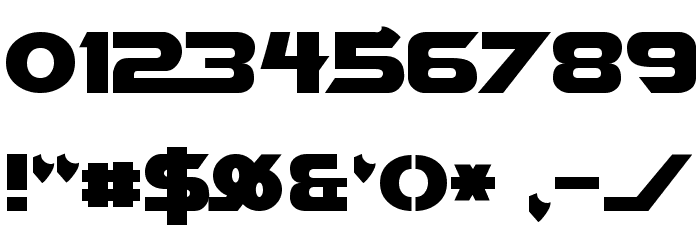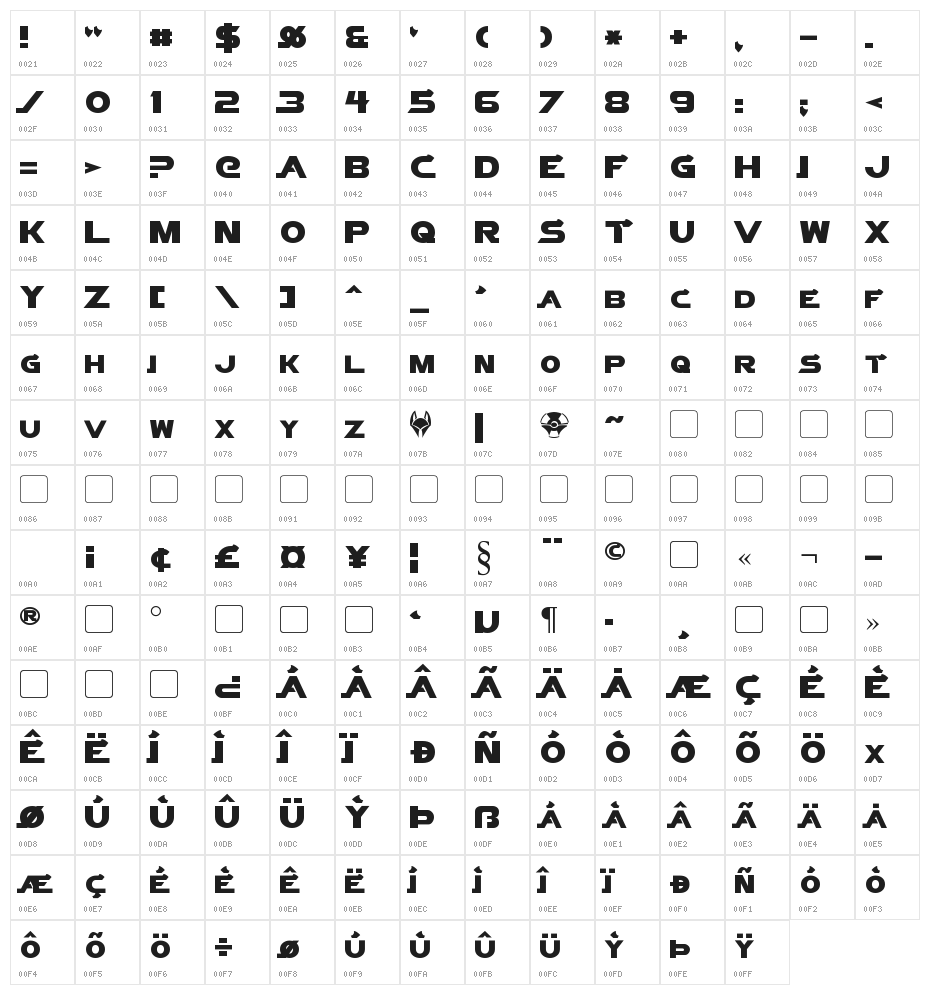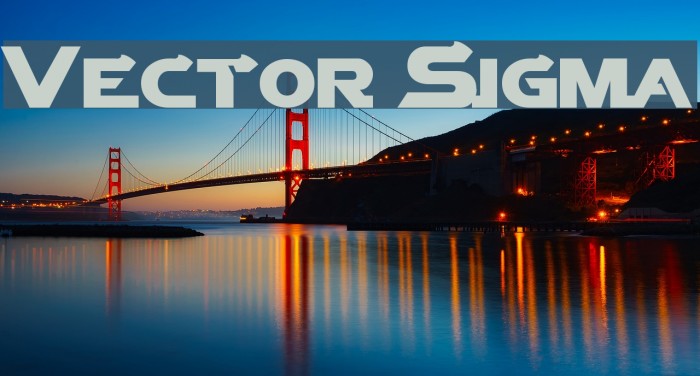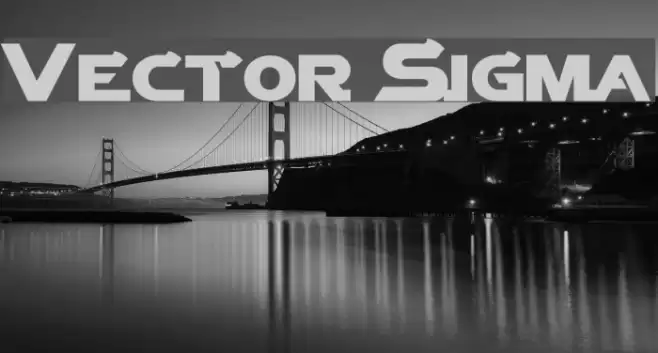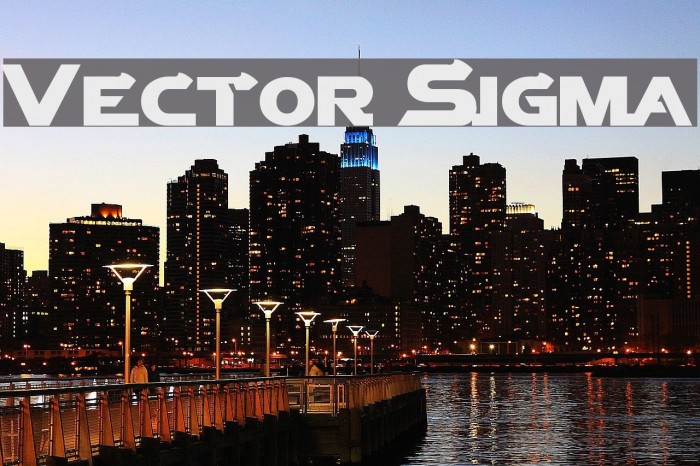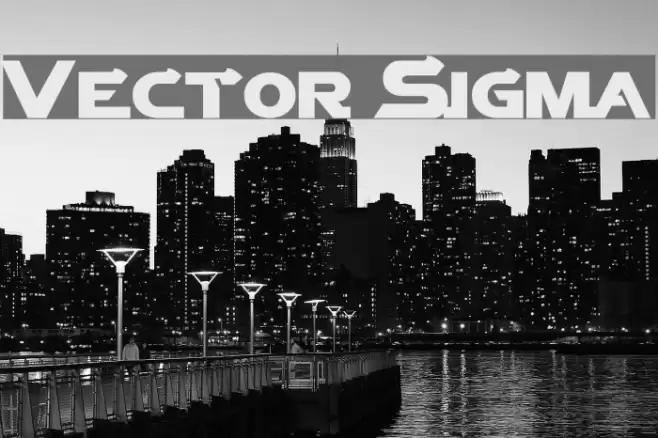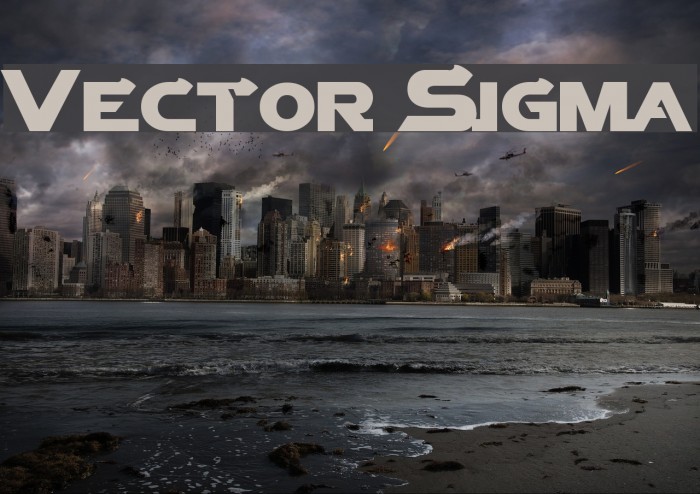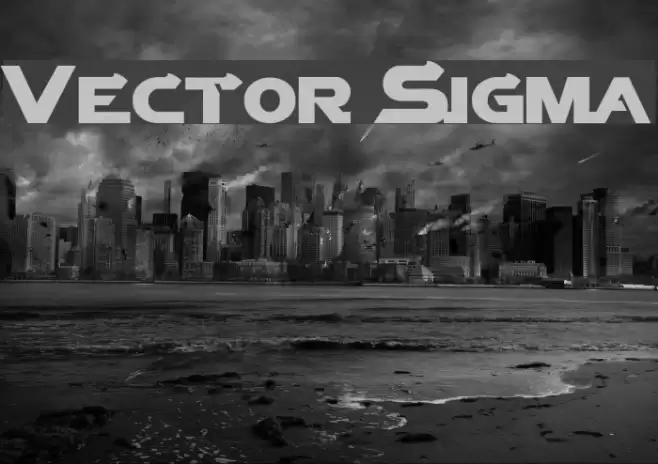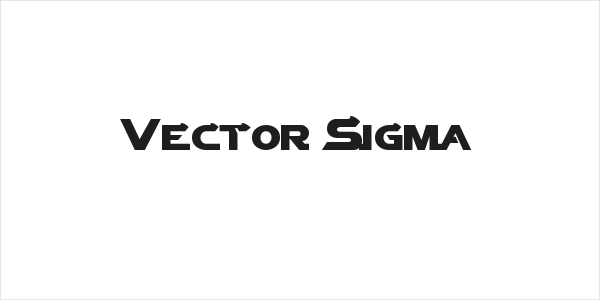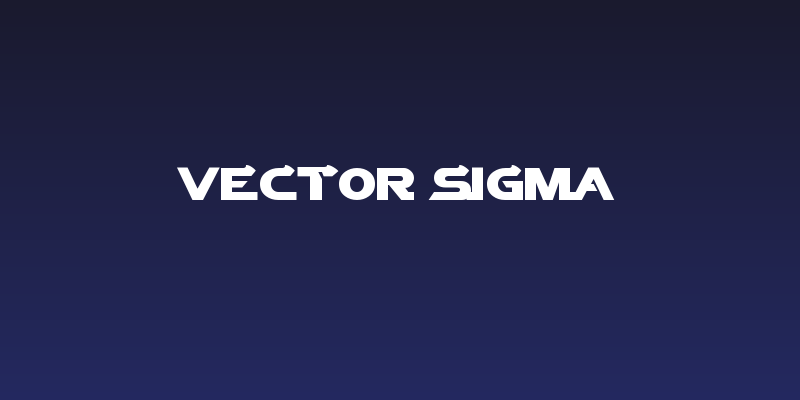
Vector Sigma Font
Vector Sigma Description
This font features a bold, geometric design with a futuristic and industrial feel. The characters are constructed with thick, uniform strokes and sharp angles, giving them a strong and assertive appearance. The use of straight lines and angular cuts creates a sense of precision and modernity. The uppercase and lowercase letters maintain a consistent style, with the lowercase mirroring the uppercase in form and structure. Numbers and special characters are designed to match the bold and angular aesthetic, ensuring a cohesive look across all elements. This font is ideal for projects that require a modern and impactful visual presence.
| Proposed Projects | Ideal for technology branding, sci-fi posters, video game titles, and industrial-themed designs. |